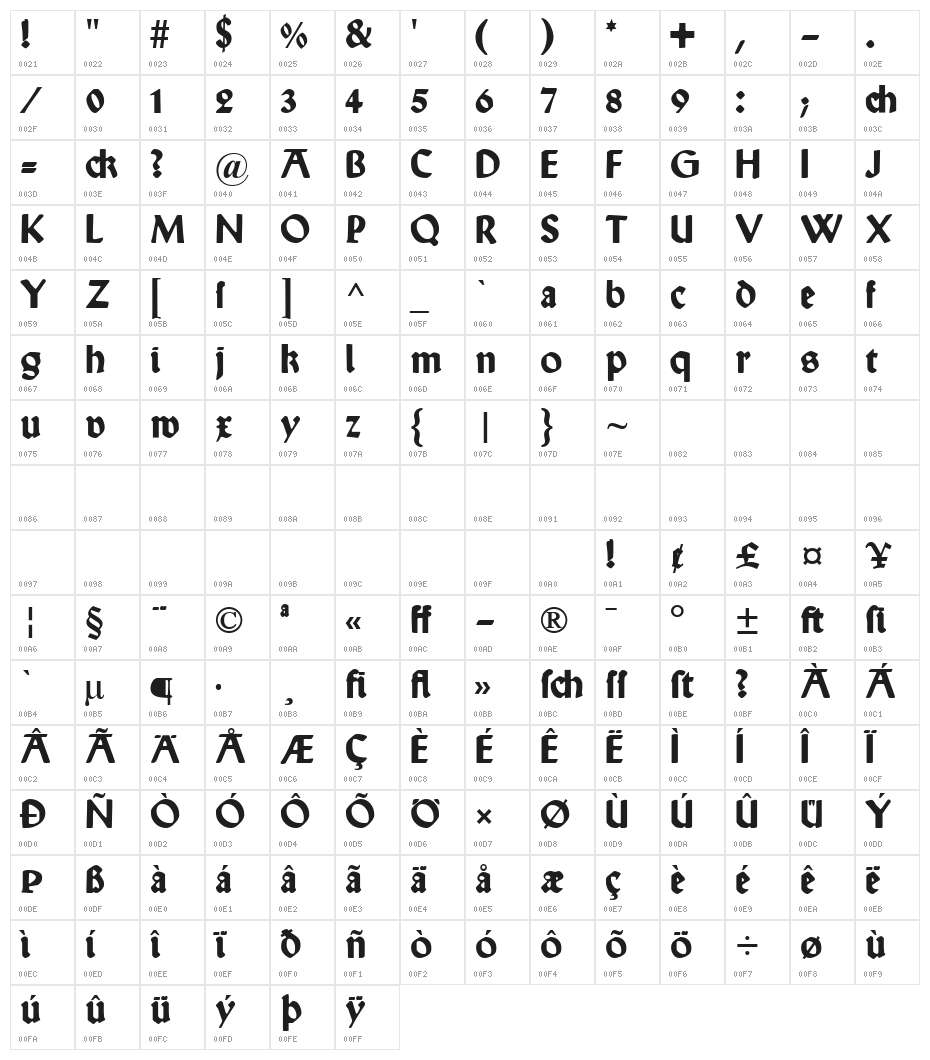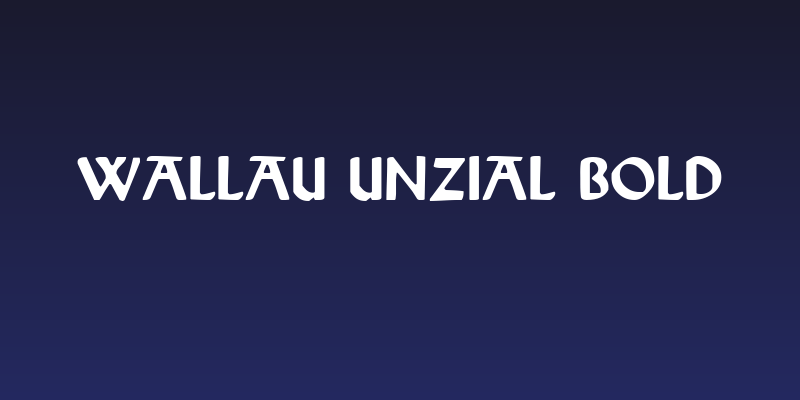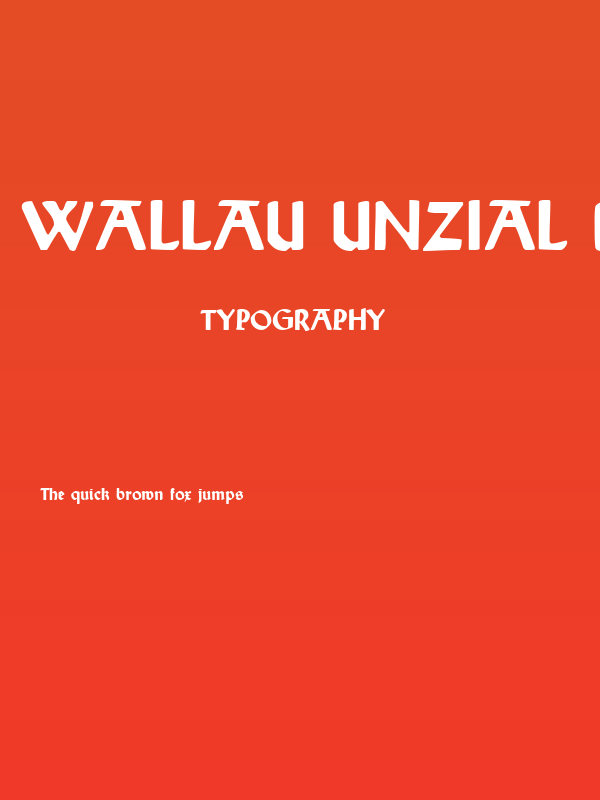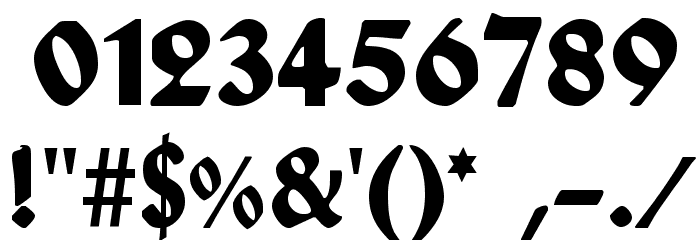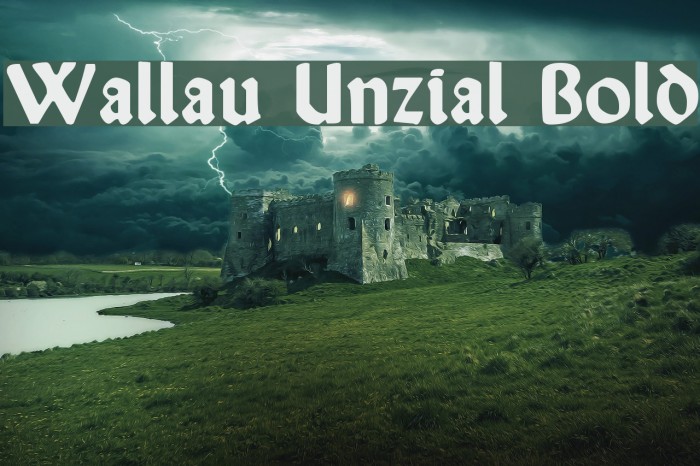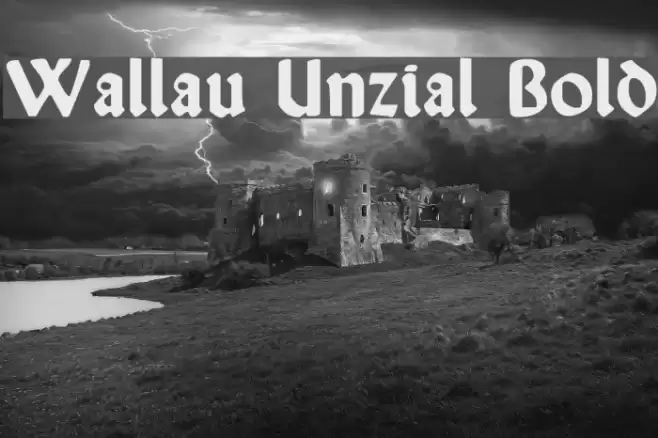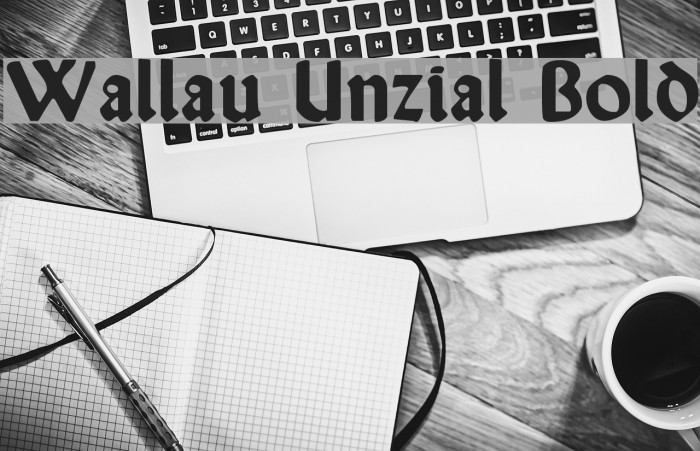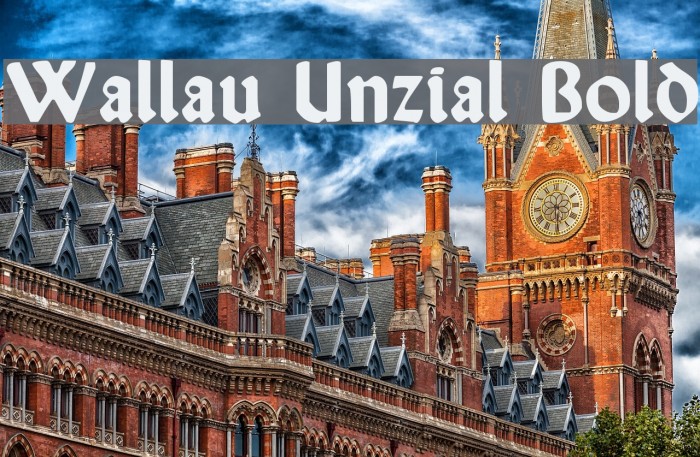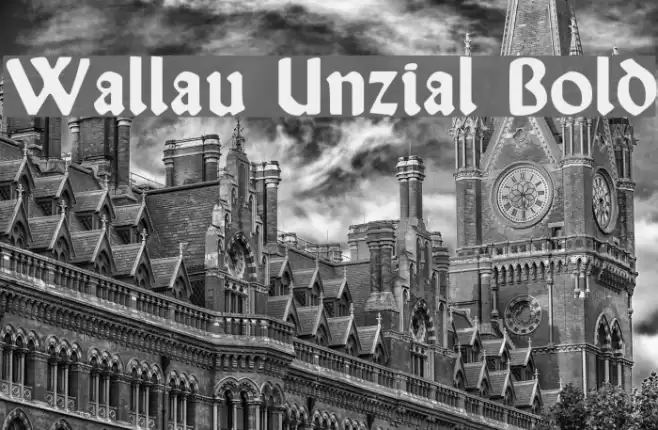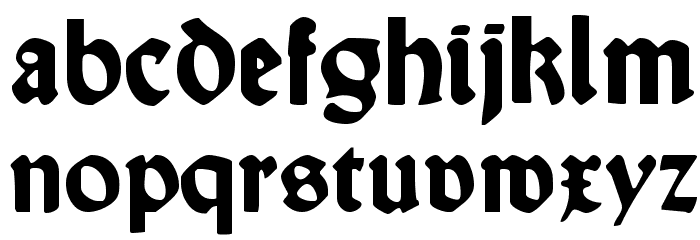
Wallau Unzial Bold Font
Wallau Unzial Bold Description
This font features a bold and striking design with a distinct medieval influence, characterized by its angular and sharp letterforms. The uppercase letters are particularly prominent, with a strong presence that commands attention. The lowercase letters maintain a consistent style, echoing the boldness of the uppercase while offering a slightly softer edge. Numbers and special characters are crafted with the same attention to detail, ensuring a cohesive look across all elements. This font's unique style is reminiscent of historical scripts, making it ideal for projects that require a touch of antiquity and elegance.
| Overall Style | Vintage |
| Use Case | Headlines, Logos, Decorative text |
| Proposed Projects | Ideal for historical-themed designs, book covers, posters, and branding that requires a classic and bold aesthetic. |